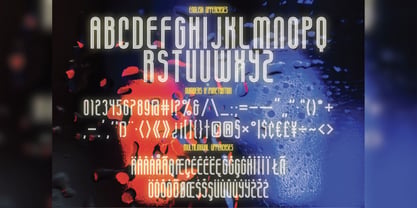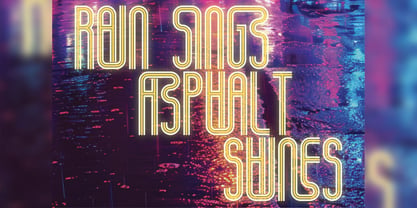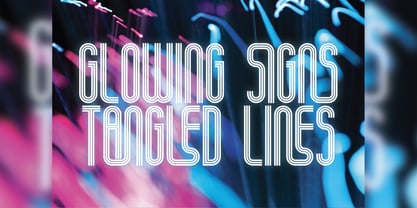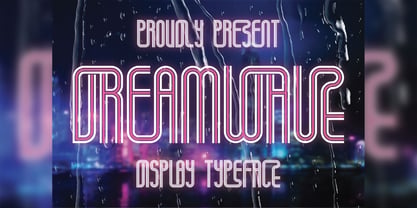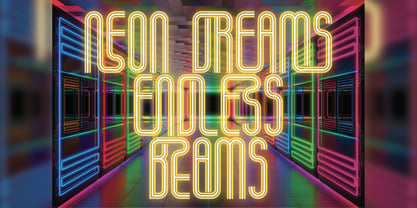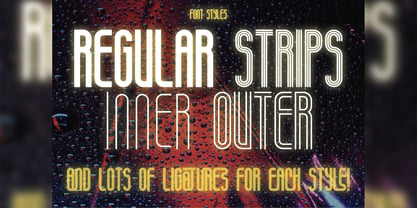
Dreamwave
by Vozzy
Introducing "Dreamwave," a distinctive font designed to elevate your headlines and accent inscriptions while capturing attention effortlessly. This versatile typeface includes a rich set of additional characters, punctuation marks, and multilingual options, making it perfect for diverse design needs. With a wide array of standard ligatures, ensure your software supports this OpenType feature to fully utilize its capabilities. "Dreamwave" is an excellent choice for branding, web design, and editorial projects, adding a touch of elegance to your stunning creations!